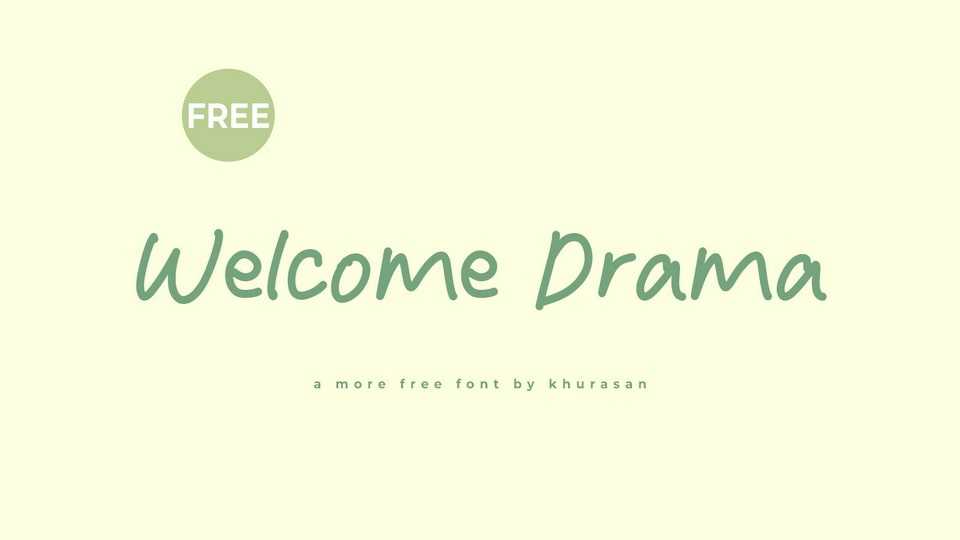
Download Welcome Drama font, a simple and natural handwritten typeface with an organic feel and subtle irregularities. This font captures the warmth and authenticity of handwritten text.